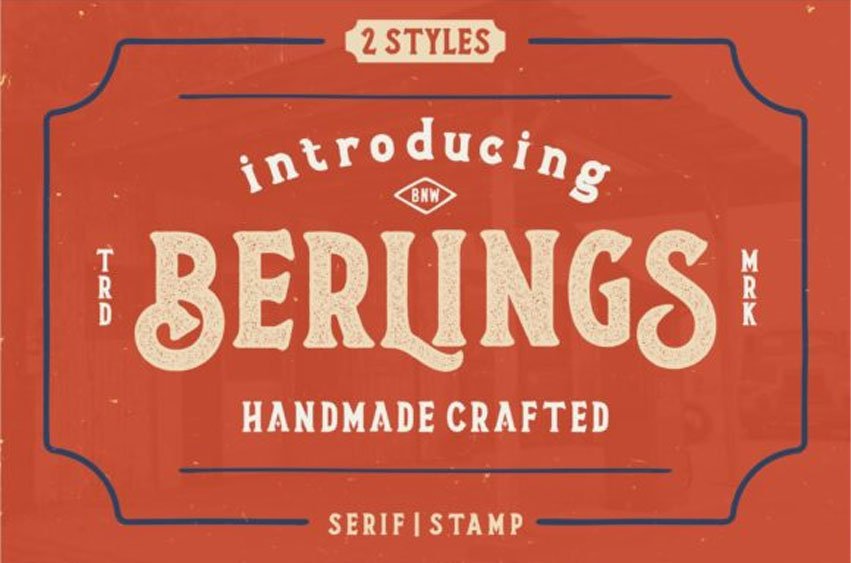
Berlings Font is a vintage and condensed serif font great for retro or period style branding projects.
Its distinctive style makes it the perfect font choice for other creative designs. Add it to your fonts’ library, and let it bring your work to its highest level!